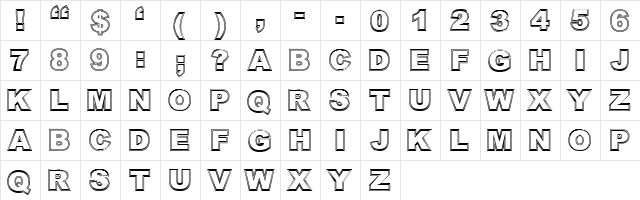
Outline Regular
Design Context for Outline Typeface
Outline is built around its visual character rather than neutral utility — its distinctive forms are designed to make an impression at display sizes.
Font Pairing: Pair with a clean neutral sans-serif for body copy to let Outline's character lead without overwhelming the composition.
Pro Tip: Treat Outline as the centrepiece of your typographic hierarchy. One strong heading set in a decorative face can carry an entire layout.